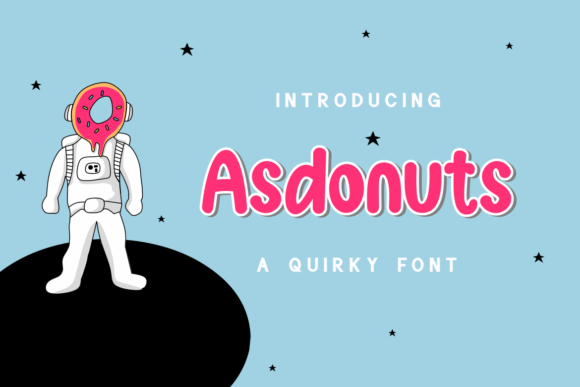
The Ultimate Design Hack: Getting to Know Asdonuts Font
I’ll never forget the time I was working on a project for a quirky client who wanted a fun, playful vibe. I had all the design elements in place – the colors, the graphics, the layout – but something was missing. That’s when I realized I needed the perfect font to tie everything together. After hours of scrolling through font libraries, I stumbled upon Asdonuts Font, and it was love at first sight! ✨
Asdonuts is more than just a font – it’s a design statement. With its cute and unique twist, it’s the perfect addition to any design project. In this article, I’ll share my honest review of Asdonuts Font, provide a practical guide on how to use it, and explore similar fonts that might tickle your fancy.
What I Love About Asdonuts Font
• ✨ Unique and playful design that’s sure to turn heads
• ✅ Highly versatile and can be used for a wide range of projects
• 🎉 Excellent for titles, headings, and emphasis text
• 👍 Easy to read and understand, even at smaller font sizes
While Asdonuts Font is an amazing addition to any design project, there are a few things to keep in mind: 🤔
• ⚠️ Some characters may not work well at very small font sizes (less than 10pt)
• ⚠️ Limited use for body text, as it’s primarily designed for display purposes
The Story Behind Asdonuts Font
Asdonuts Font was designed with one goal in mind: to create a fun, playful font that’s perfect for display purposes. The designer, inspired by the whimsy of donuts and the joy of creative expression, crafted a font that’s both unique and versatile. Whether you’re working on a branding project, a social media graphic, or a craft project, Asdonuts Font is sure to bring a smile to your face.
What type of projects is Asdonuts Font best suited for? Asdonuts Font is perfect for display purposes, such as titles, headings, and emphasis text. It’s great for branding projects, social media graphics, and craft projects.
Can I use Asdonuts Font for body text? While Asdonuts Font is primarily designed for display purposes, it can be used for short blocks of body text. However, it’s not recommended for long-form reading.
Is Asdonuts Font available in different weights and styles? Asdonuts Font comes in a range of weights and styles, making it versatile and adaptable to different design projects.
In conclusion, Asdonuts Font is a fun, playful font that’s sure to elevate your design projects. With its unique twist and versatile design, it’s an excellent addition to any font library. Whether you’re a designer, crafter, or creative hobbyist, Asdonuts Font is a must-have font that will bring a touch of whimsy and joy to your creations.